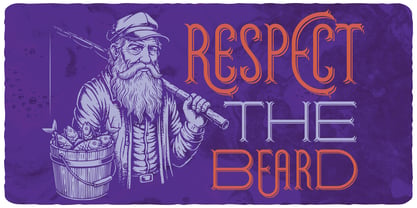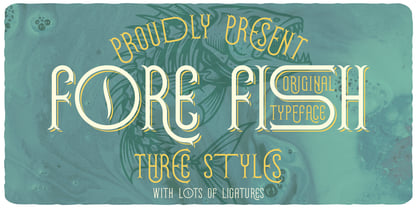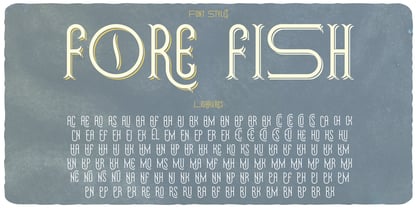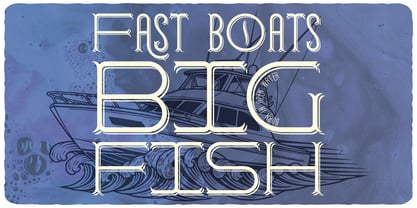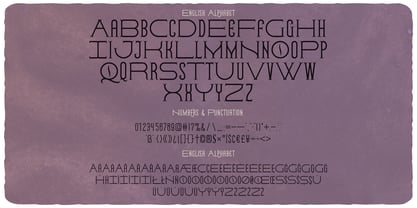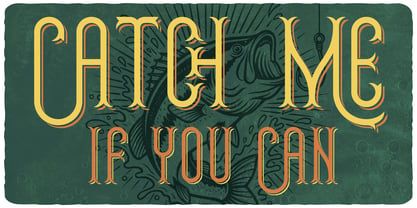
Fore Fish
by Vozzy
The Fore Fish Font Family was designed by Oleg Voznyy and published by Vozzy. Fore Fish contains 3 styles and family package options. More about this family
Introducing the captivating font family "Fore Fish," designed to make a statement in headlines and accent inscriptions. This unique typeface is perfect for attracting attention and enhancing your creative projects. It features a diverse range of additional characters, punctuation marks, and multilingual support, ensuring versatility across various languages. With a substantial collection of standard ligatures, this font offers seamless connections between letters, adding elegance to your designs. Ideal for branding, web design, and editorial use, "Fore Fish" will elevate your visual communication and make your designs truly stand out!